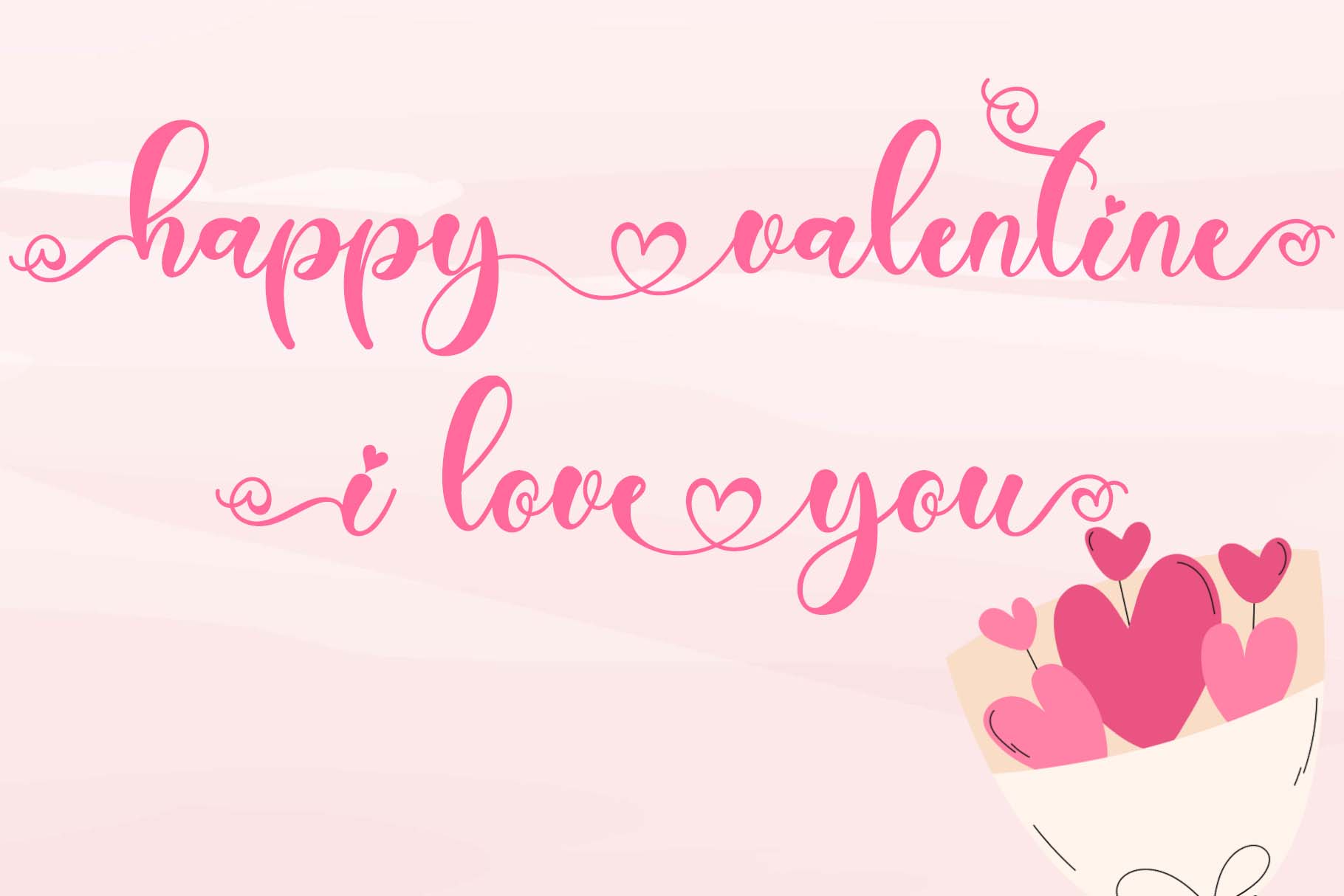
Helena Valentine Font
Helena Valentine Font is a romantic and elegant script typeface that captures timeless beauty and charm. Featuring graceful swashes, flowing curves, and delicate letterforms, it’s perfect for wedding invitations, love-themed designs, branding, and greeting cards. With its sophisticated style and excellent readability, Helena Valentine adds a luxurious, heartfelt touch to any project. Its versatility and refined details make it a go-to choice for creating memorable, expressive designs.